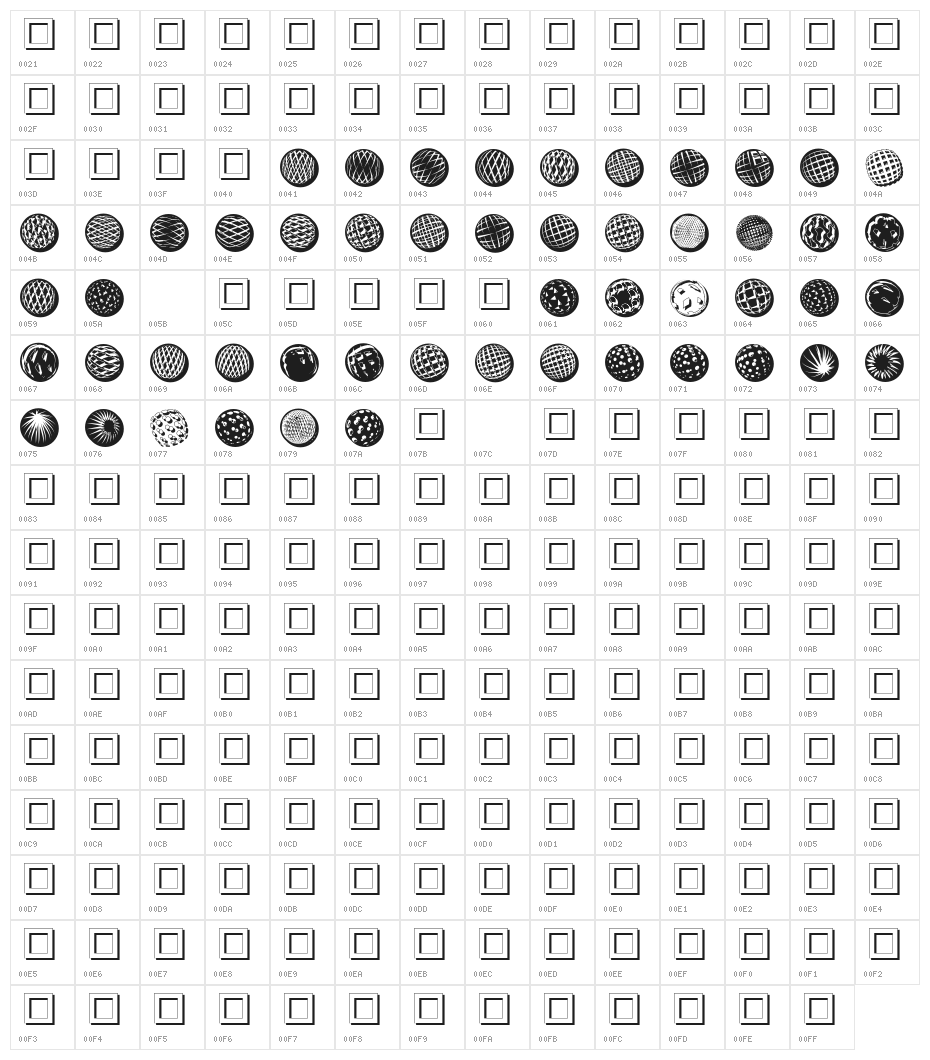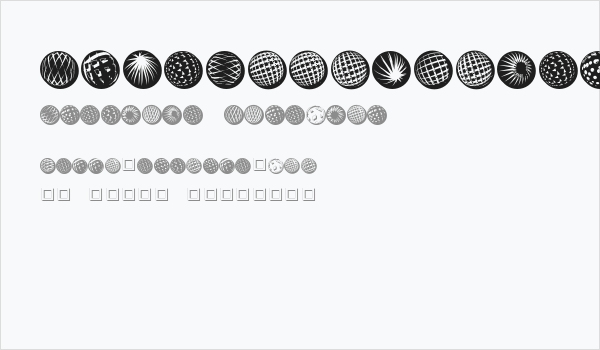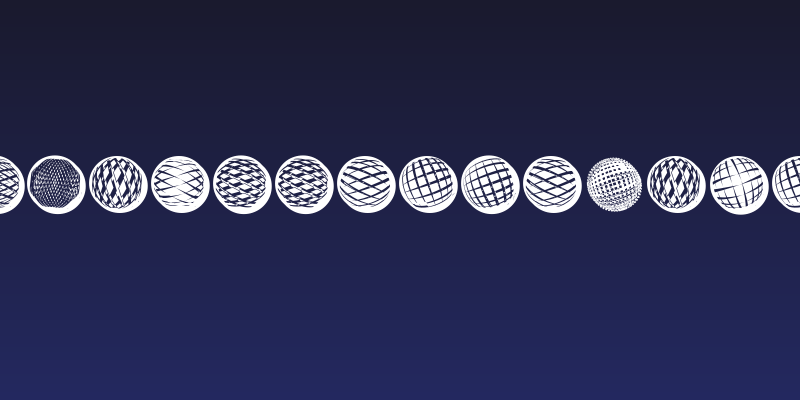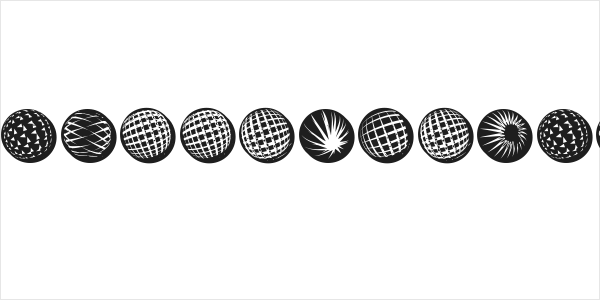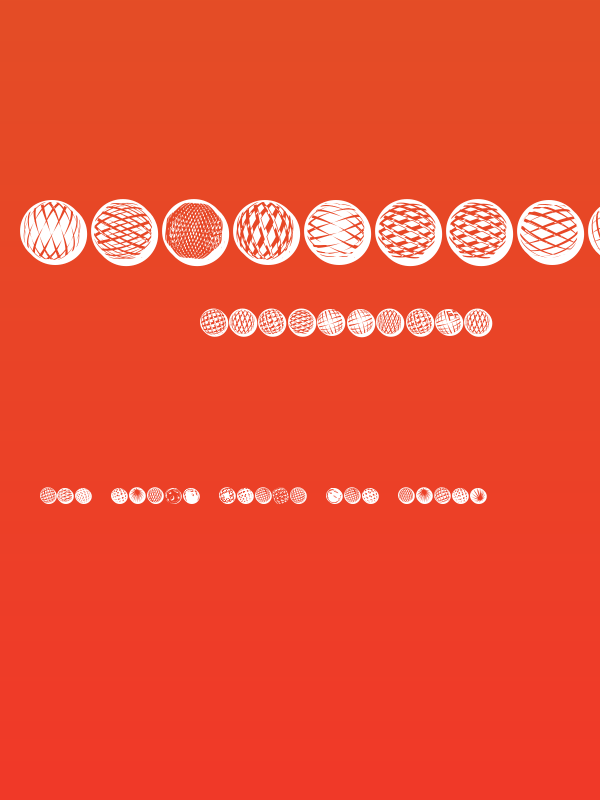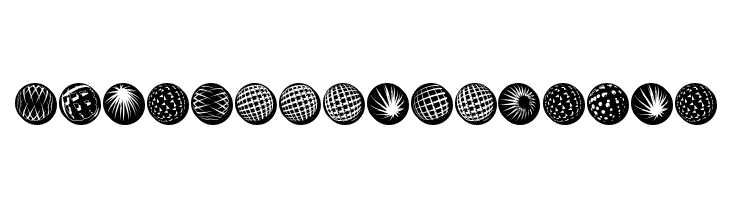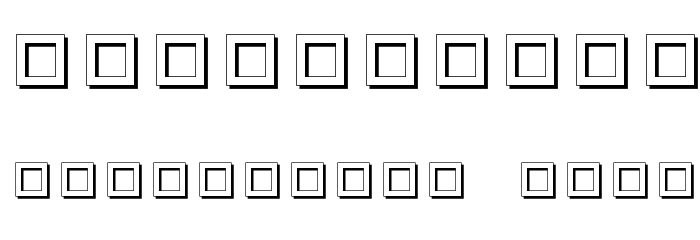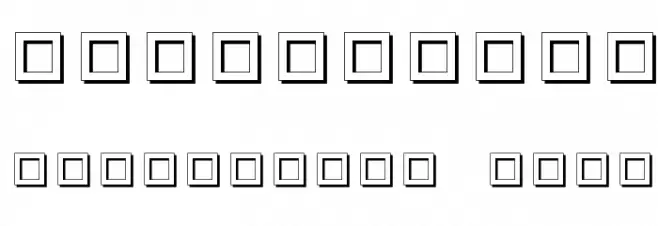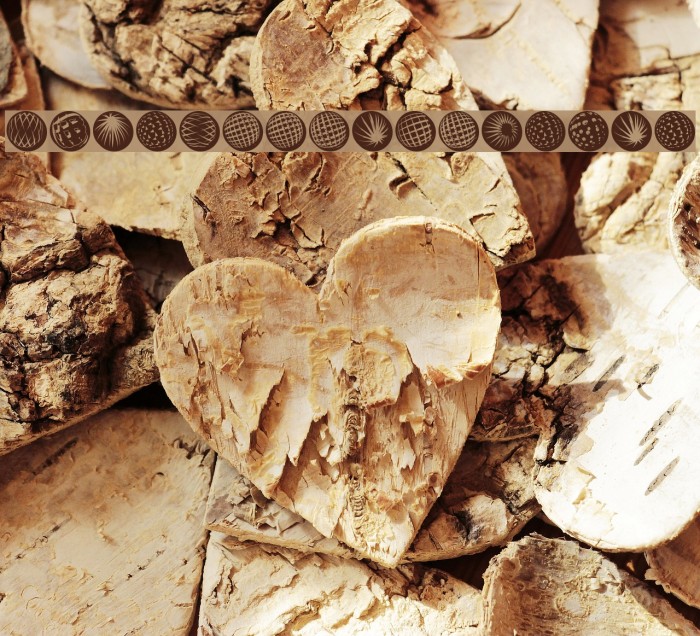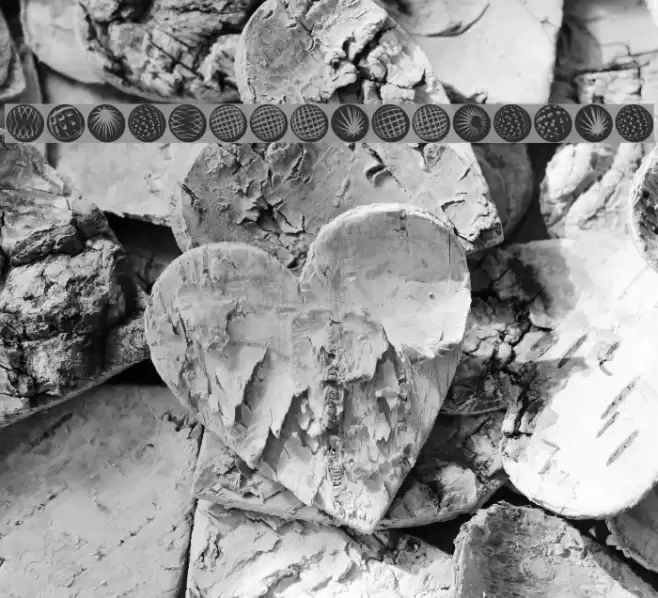
BlueMoonsInverse Font
BlueMoonsInverse Description
A highly decorative and abstract font featuring uppercase and lowercase letters, numbers, and symbols as filled circles with intricate geometric patterns, and squares with double outlines for numbers and symbols. Each character is uniquely stylized, making legibility secondary to visual impact.
| Overall Style | Decorative, Abstract, Modern |
| Use Case | Logos, Headlines, Posters, Artistic projects |
| Proposed Projects | Album covers, posters, experimental branding, art installations, creative event invitations. |